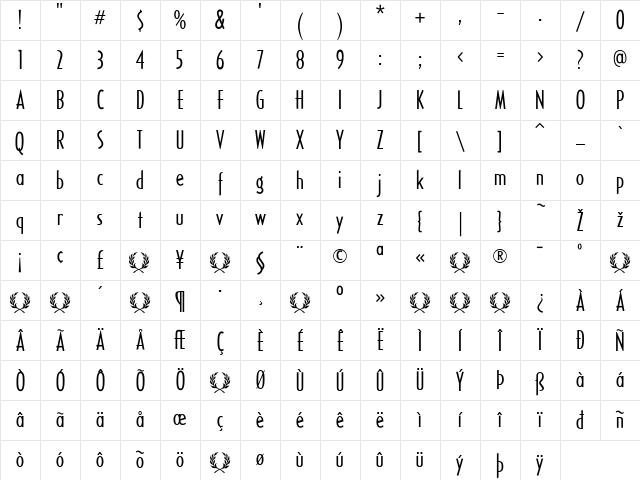
Romeo Regular
Romeo Family
Romeo Regular
Design Context for Romeo
Romeo is a composed and adaptable typeface that performs quietly and consistently across a wide range of design contexts.